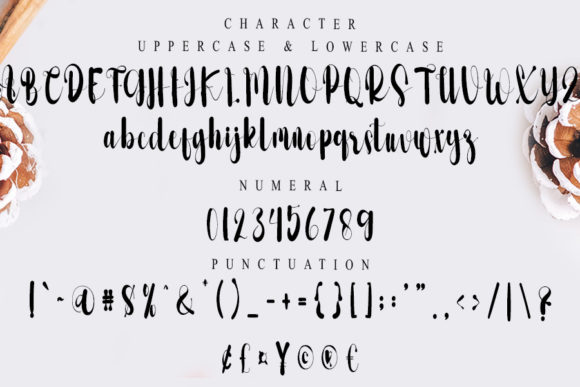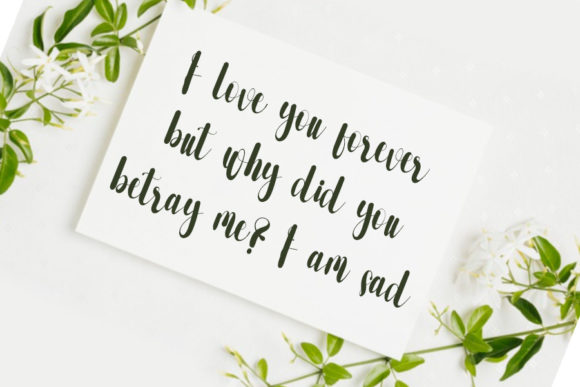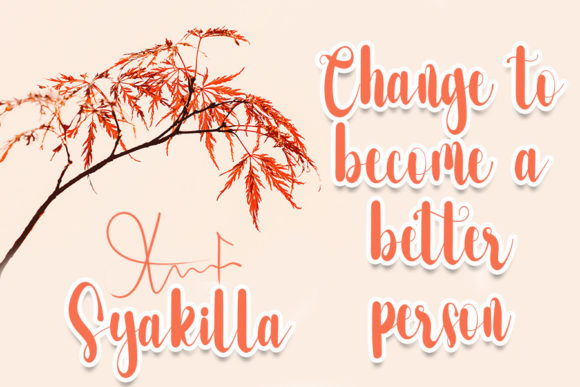
The Fashionable Font That’s Taking the Design World by Storm: Fashions Font
I’ll never forget the moment I stumbled upon Fashions Font while working on a branding project for a trendy boutique. I had been searching for the perfect font for hours, trying out various sans-serif and serif options, but nothing seemed quite right. That was until I saw Fashions Font – a modern handwritten font that immediately caught my eye. Its smooth curves and bold, stylish vibe were exactly what I needed to bring my client’s vision to life.
An Honest Review: What I Love (and What to Watch Out For)
- ✅ Readability: Fashions Font is surprisingly readable, even at smaller sizes, making it perfect for body text or captions.
- ✅ Smooth Curves: The font’s sleek, cursive lines give it a luxurious feel that’s perfect for fashion branding or editorial designs.
- ✅ Bold and Stylish: Fashions Font makes a statement, adding a touch of sophistication to any design.
- ⚠️ Limited Use in Non-Fashion Contexts: While Fashions Font is versatile, it may not be the best fit for more formal or traditional designs, such as academic papers or corporate branding.
- ⚠️ Glyph Limitations: Some users have reported that the font’s glyph set is not as extensive as they would like, which can limit its use in certain design projects.
Fashions Font comes with a range of OpenType features and glyphs that can enhance your designs. To access these features, you’ll need to use a design application that supports OpenType, such as Adobe Creative Cloud. Some of the features you can expect to find include:
- Stylistic alternates: Fashions Font offers a range of stylistic alternates that allow you to customize the font’s appearance.
- Ligatures: The font includes ligatures that can help to create a more natural, handwritten feel.
- Swashes: Fashions Font also includes swashes that can add a touch of elegance to your designs.
The Story Behind Fashions Font
Fashions Font was designed by a team of creatives who wanted to create a font that would capture the essence of modern fashion. Inspired by the latest trends and styles, they set out to create a font that would be both bold and stylish, yet readable and versatile. After months of work, Fashions Font was born – a font that has quickly become a favorite among designers and crafters.
Q: What is Fashions Font?
A: Fashions Font is a modern handwritten font that is designed for fashion branding and editorial designs.
Q: Is Fashions Font suitable for body text?
A: Yes, Fashions Font is surprisingly readable, even at smaller sizes, making it suitable for body text or captions.
Q: Does Fashions Font come with OpenType features?
A: Yes, Fashions Font comes with a range of OpenType features, including stylistic alternates, ligatures, and swashes.